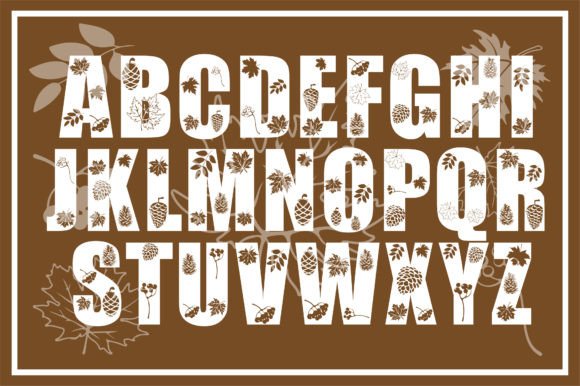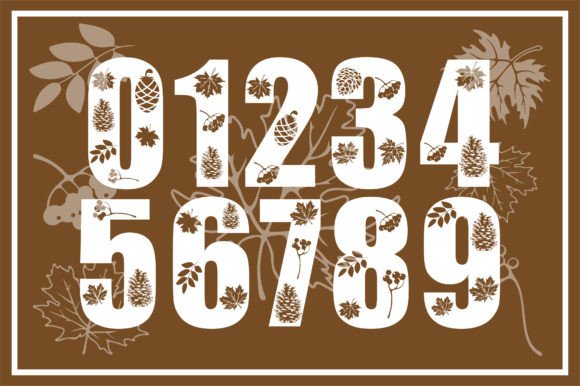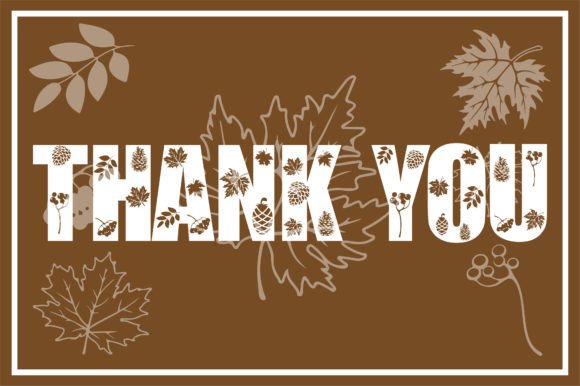
Introducing Hello Fall Font: Add a Touch of Joy to Your Designs
Are you looking for a font that can add a playful and whimsical touch to your designs? Look no further than the Hello Fall Font. This cool and original-looking decorative font is perfect for designers and crafters who want to create eye-catching and engaging content. In this article, we’ll take a closer look at the Hello Fall Font, its features, and how you can use it to elevate your designs.
What is Hello Fall Font?
Hello Fall Font is a unique and creative font that is designed to bring a touch of joy and playfulness to your designs. Its cool and original-looking style makes it perfect for a wide range of applications, from cartoon-related designs and children’s games to quotes, titles, brand names, book covers, posters, and more.
Key Features of Hello Fall Font
- Unique and Creative Style: Hello Fall Font has a distinctive and original style that sets it apart from other fonts.
- Playful and Whimsical: The font’s playful and whimsical design makes it perfect for designs that require a touch of fun and joy.
- Highly Versatile: Hello Fall Font can be used for a wide range of applications, from digital designs to print materials.
- Easily Readable: Despite its playful style, Hello Fall Font is easily readable, making it perfect for use in titles, headings, and body text.
How to Use Hello Fall Font in Your Designs
Hello Fall Font is a highly versatile font that can be used in a variety of design applications. Here are some ideas to get you started:
- Cartoon-Related Designs: Use Hello Fall Font to create fun and engaging cartoon-related designs, such as character names, titles, and dialogue.
- Children’s Games and Activities: Add a touch of playfulness to your children’s games and activities with Hello Fall Font.
- Quotes and Titles: Use Hello Fall Font to create eye-catching quotes and titles for your designs.
- Brand Names and Logos: Create a unique and memorable brand name or logo with Hello Fall Font.
- Book Covers and Posters: Use Hello Fall Font to create eye-catching book covers and posters that grab attention.
Tips for Getting the Most Out of Hello Fall Font
Here are some tips for getting the most out of Hello Fall Font:
- Experiment with Different Colors: Hello Fall Font looks great in a variety of colors, so don’t be afraid to experiment and find the perfect color scheme for your design.
- Use it with Other Fonts: Hello Fall Font pairs well with other fonts, so try using it with a complementary font to create visual interest.
- Pay Attention to Kerning: As with any font, pay attention to kerning to ensure that your text looks professional and polished.
Hello Fall Font is a unique and creative font that can add a touch of joy and playfulness to your designs. Its highly versatile style makes it perfect for a wide range of applications, from cartoon-related designs and children’s games to quotes, titles, brand names, book covers, posters, and more. With its easily readable style and highly versatile design, Hello Fall Font is a great choice for designers and crafters who want to create eye-catching and engaging content.
Overall, Hello Fall Font is a great addition to any designer’s font library. Its unique and creative style, highly versatile design, and easily readable style make it perfect for a wide range of applications. So why not give it a try and see how it can elevate your designs?